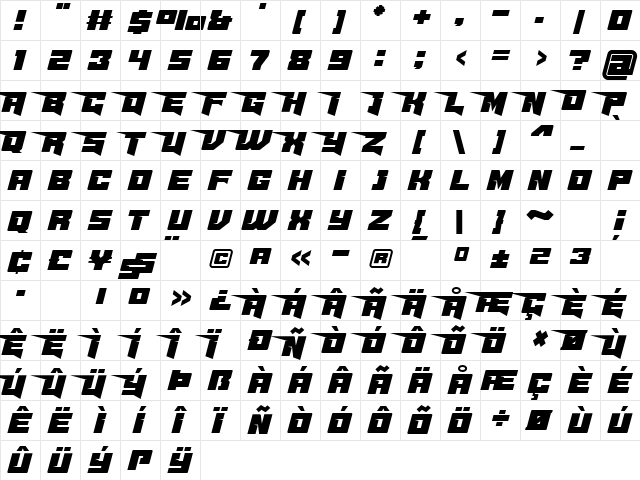
Masked Hero Demo Regular
| Designer | Ari juanda |
Design Context for Masked Hero Demo Typeface
Masked Hero Demo is a composed and adaptable typeface that performs quietly and consistently across a wide range of design contexts.